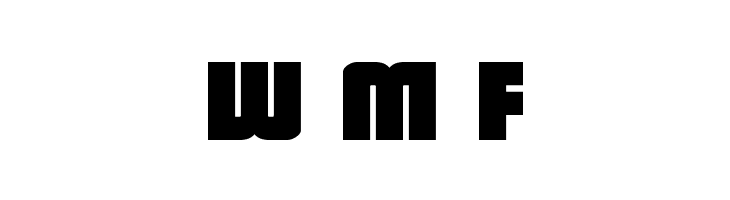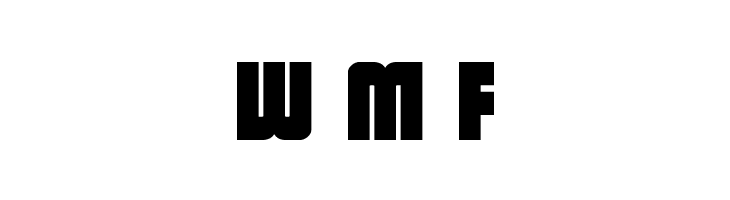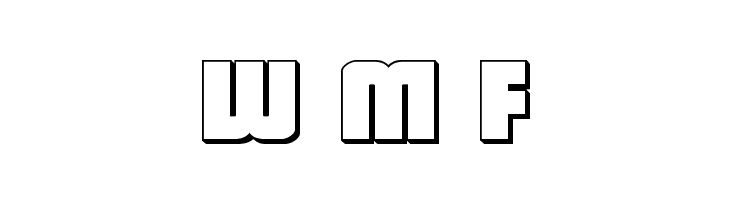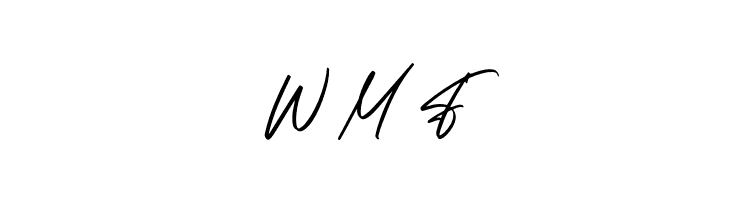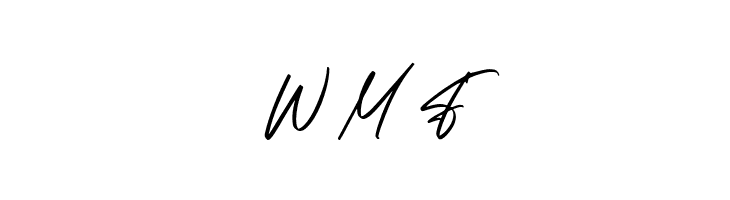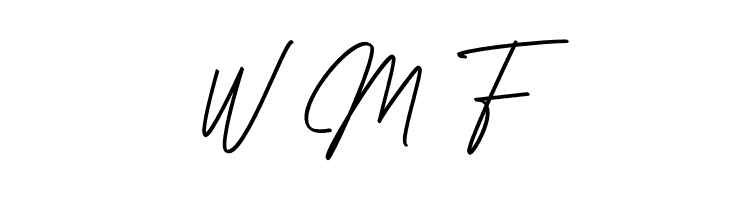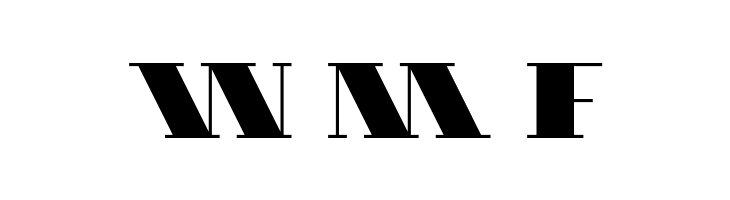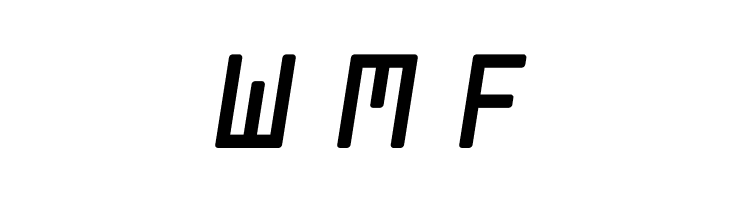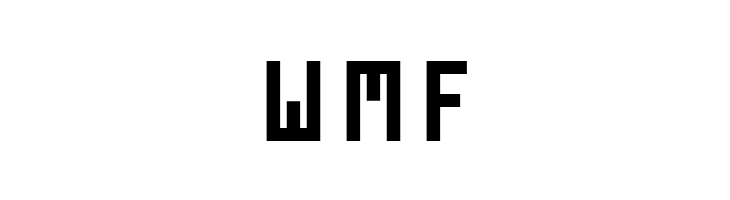
A bold, geometric display typeface with a modern, industrial aesthetic.
Bold, condensed font with geometric shapes and minimal spacing.
A bold, 3D geometric font with a strong, modern aesthetic.
A bold, futuristic italic font with angular shapes and tight spacing.
A dynamic, cursive script font with a lively, handwritten style.
A fluid and elegant script font with a handwritten appearance.
A fluid and elegant script font with dynamic cursive letterforms.
A bold, high-contrast font with geometric and decorative elements.
A bold, condensed font with a mechanical and futuristic design.
A bold, geometric font with a futuristic, mechanical style.
A futuristic, condensed font with a geometric and mechanical design.